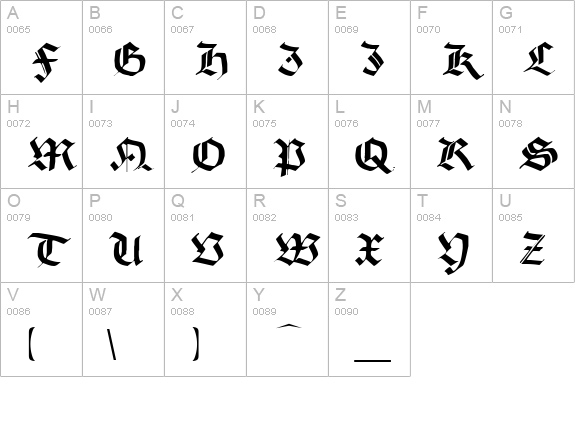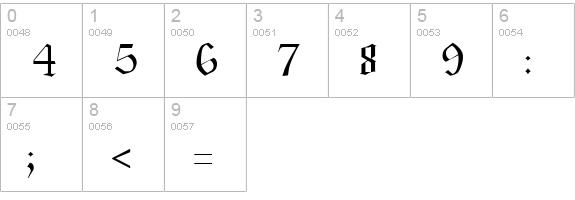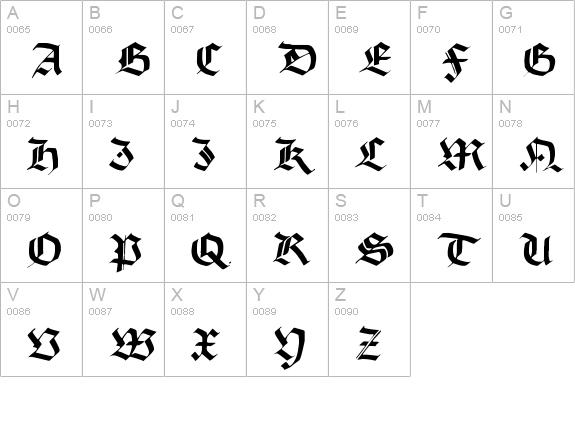
Burgundian Font Details
The Burgundian font is a timeless and elegant typeface with a classic yet modern appeal. Inspired by the rich history and sophistication of Burgundy, this font exudes a sense of luxury and refinement. Its graceful curves and sharp serifs make it perfect for creating stunning designs that command attention. This exquisite font is available for free download at FontsMarket.com, allowing designers and creatives to easily access and utilize its beauty in their projects. Whether used for branding, editorial design, or any other creative endeavor, the Burgundian font is sure to elevate the visual impact of any piece. Add a touch of sophistication and elegance to your designs with this exquisite typeface today.